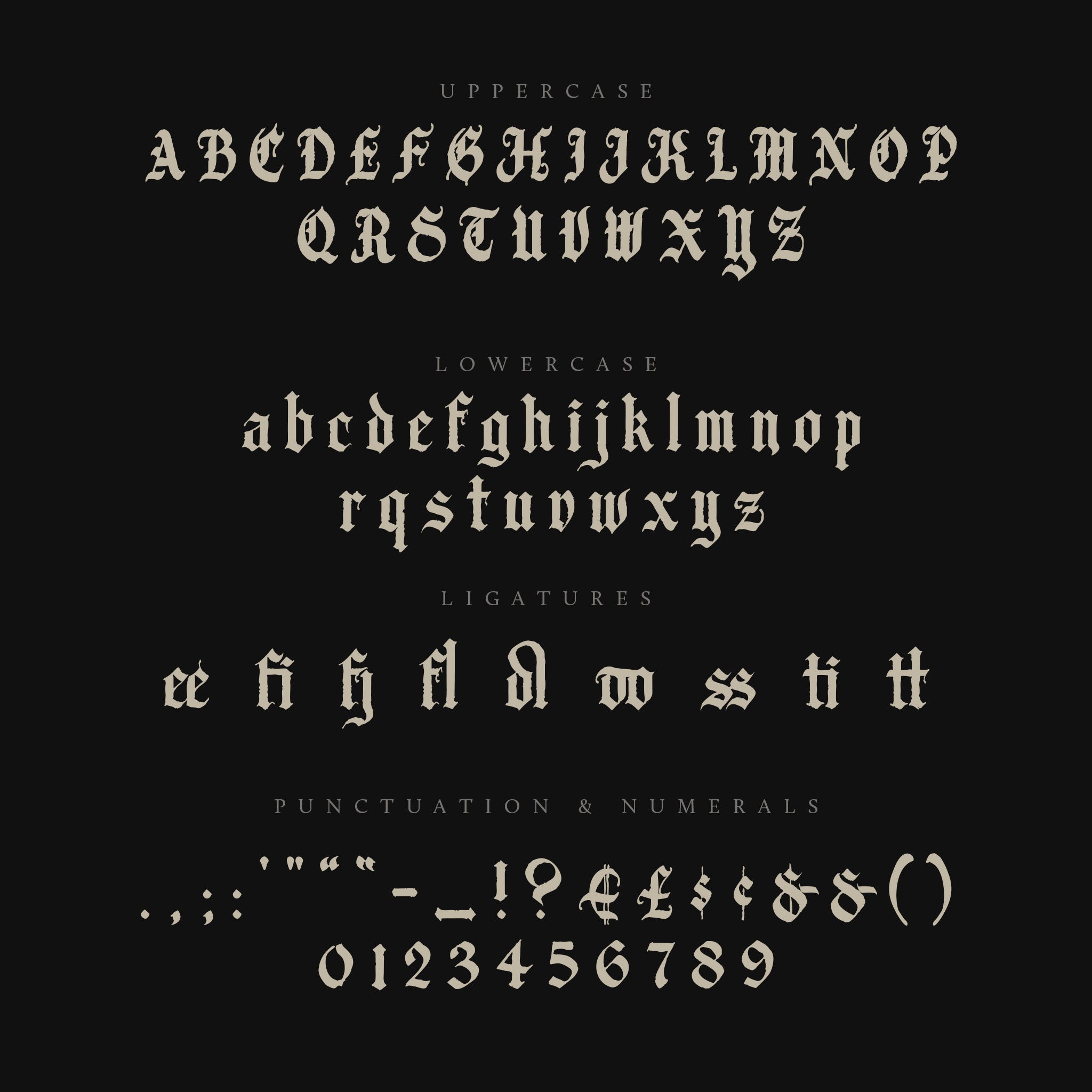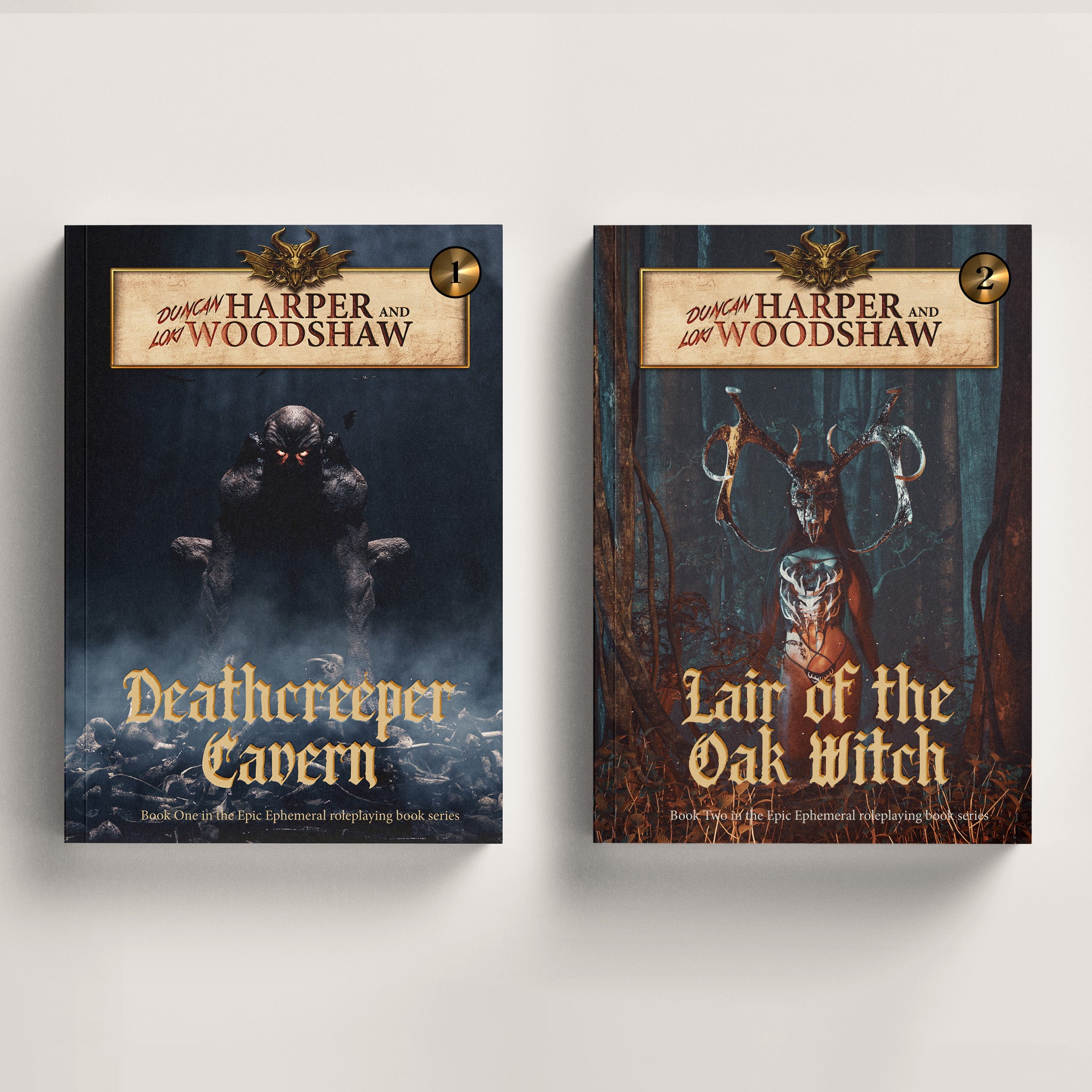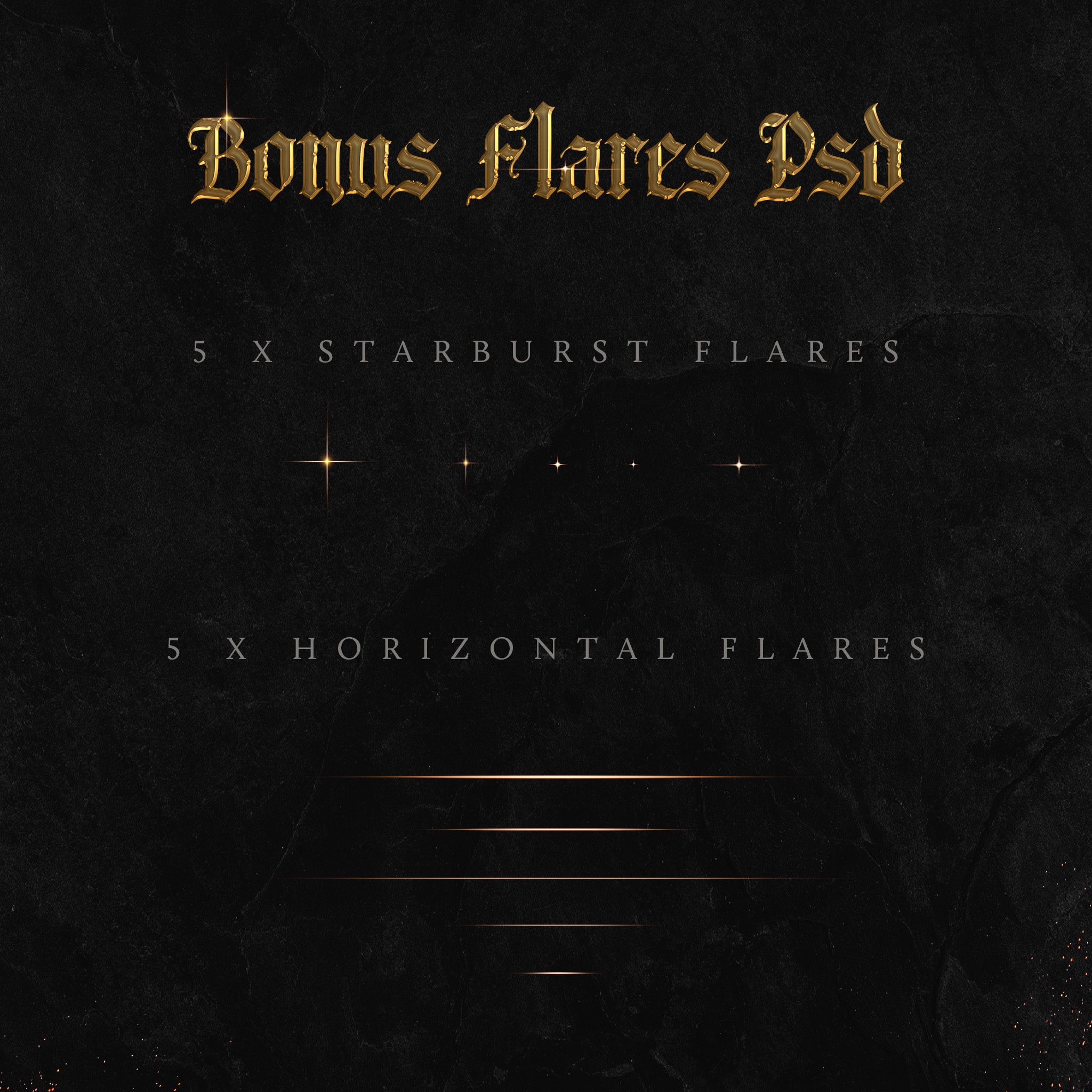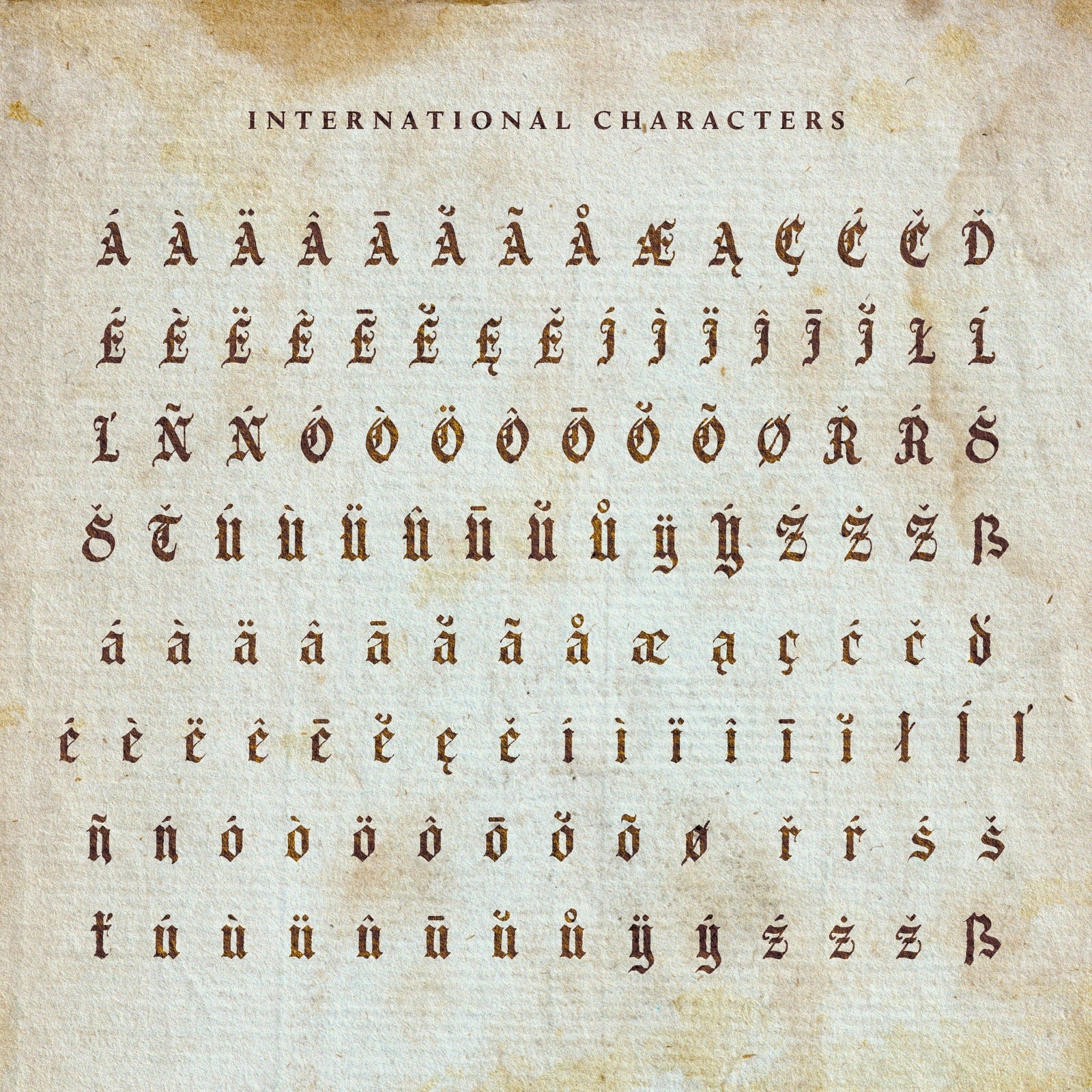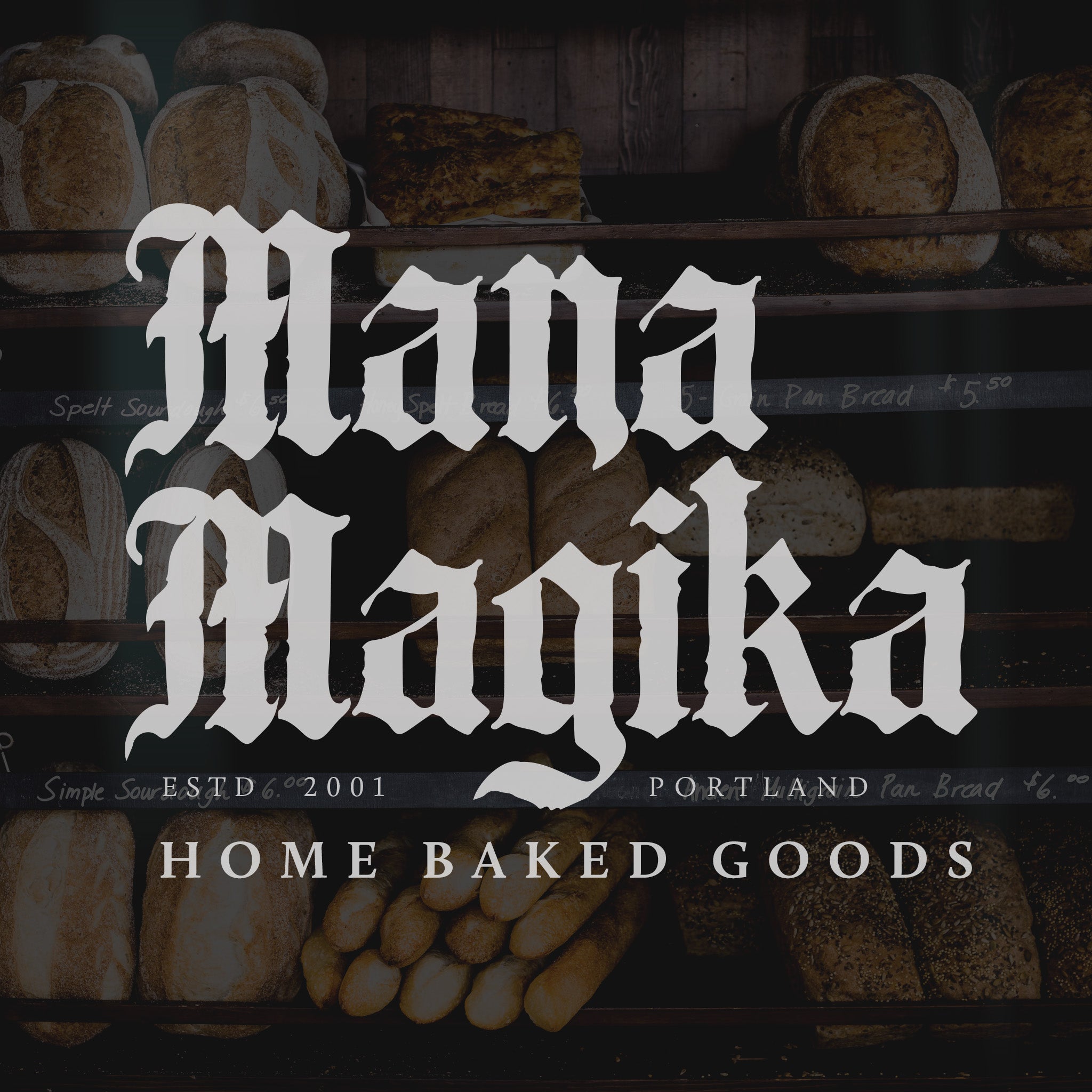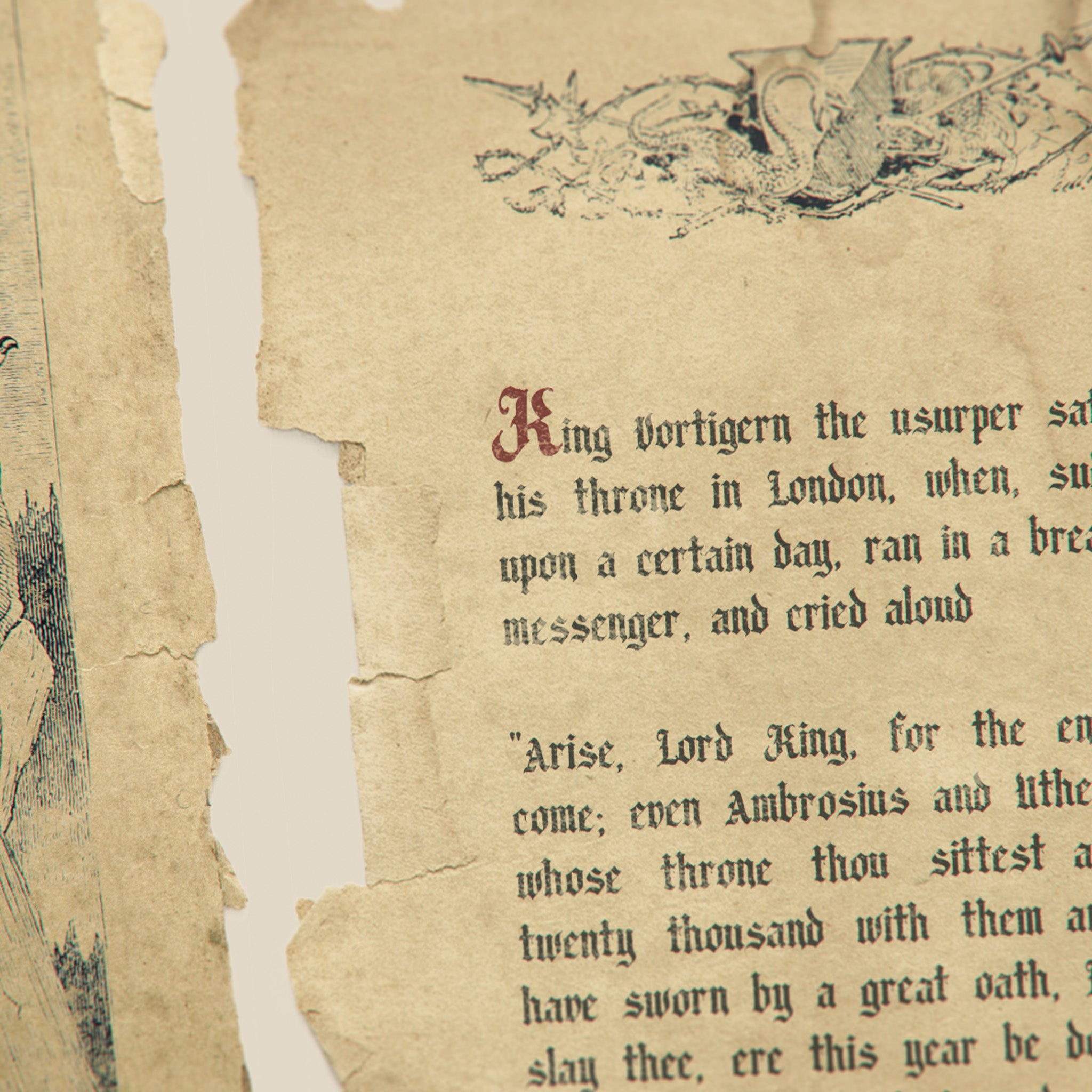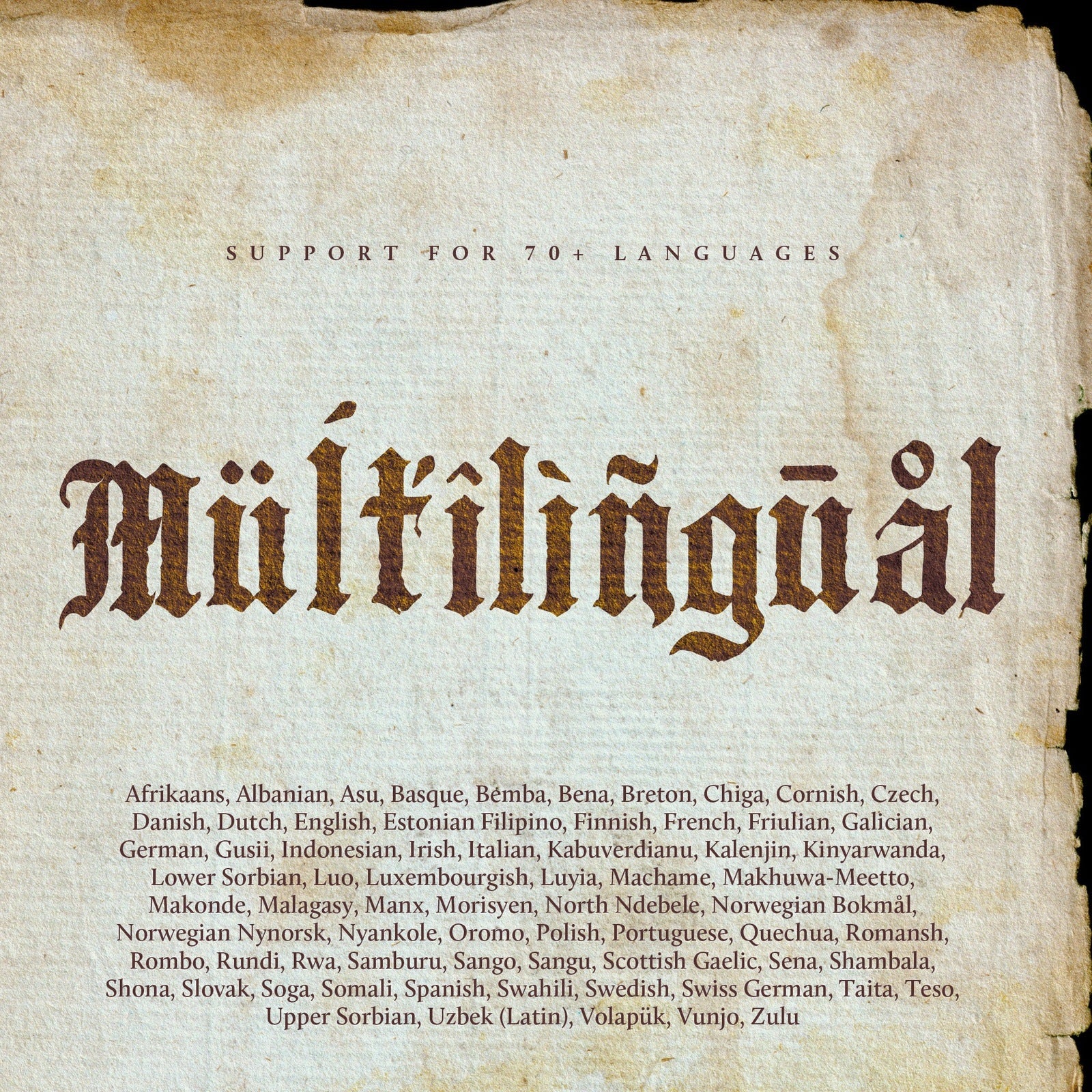
Candelabra Blackletter
Forged in the shadow of medieval halls, Candelabra evokes the drama and weight of Gothic letters. This blackletter font carries the gravitas of Old English script, and boasts multilingual support spanning 70 languages;  a bridge between the past and your darkly imagined worlds.
Ideal for labelling maps, scribing mysterious notes, or crafting invitations to shadowed campaigns and grimdark adventures. As a further boon, it includes eight Photoshop layer styles and ten luminous flares, perfect for adding subtle enchantment or foreboding flourish to your creations.
It is also the perfect font for tattoo artists, or for poster and album artwork for heavy metal bands, venues and festivals.